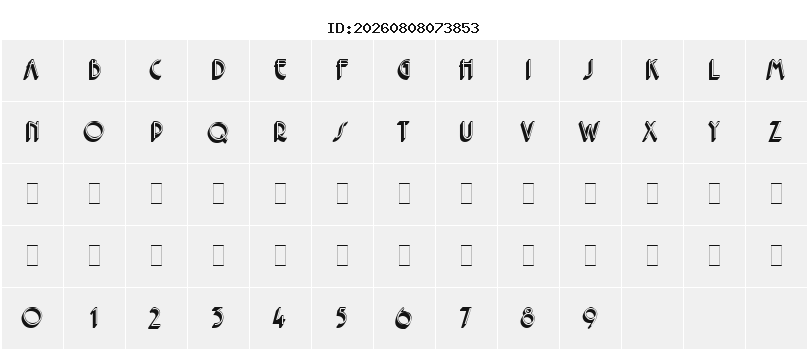
Premier Shaded LET Preview
• Font Name: Premier Shaded LET
• Font Style: Plain
• Font ID: Premier Shaded LET Plain
• Full Font Name: Premier Shaded LET Plain:1.0
• PostScript Name: PremierShadedLetPlain
• Copyright: COPYRIGHT ESSELTE LETRASET LTD., 1990
About Premier Shaded LET.ttf
Premier Shaded LET.ttf is a modern, elegant sans-serif font designed for ultimate readability and visual harmony. Perfect for branding, headlines, web design, and print materials.